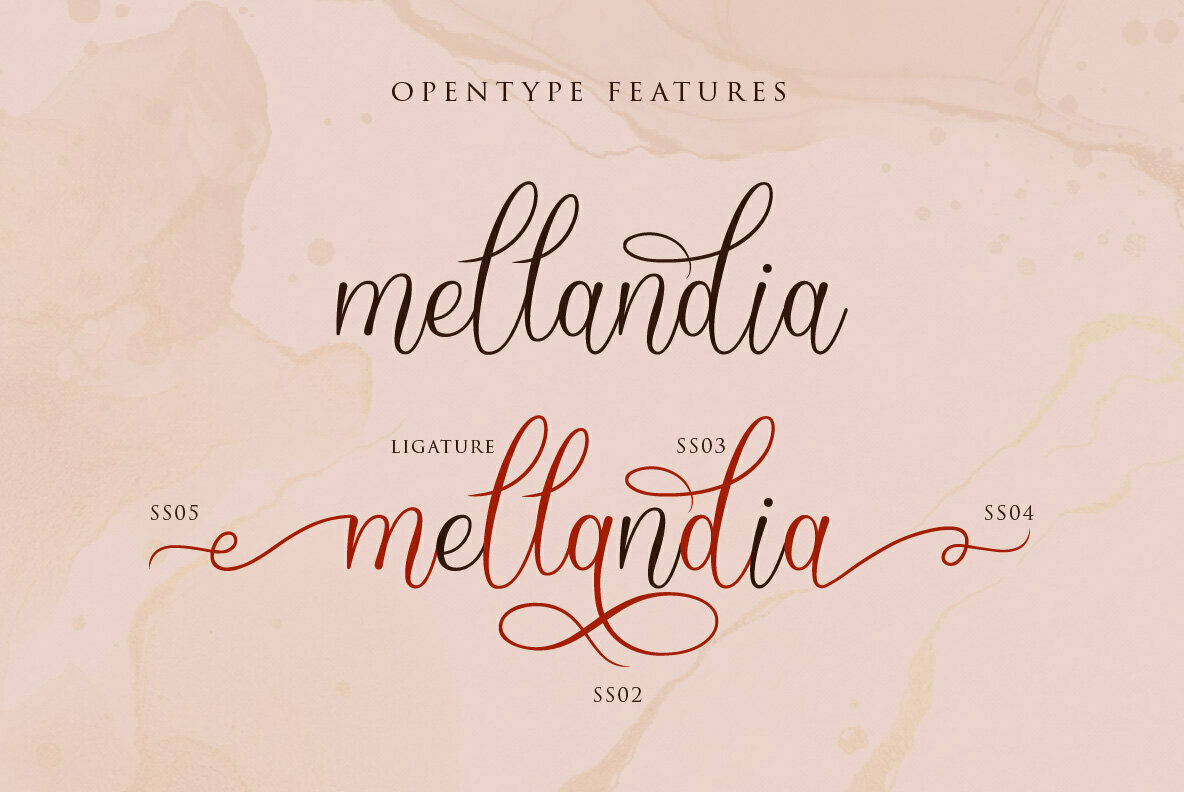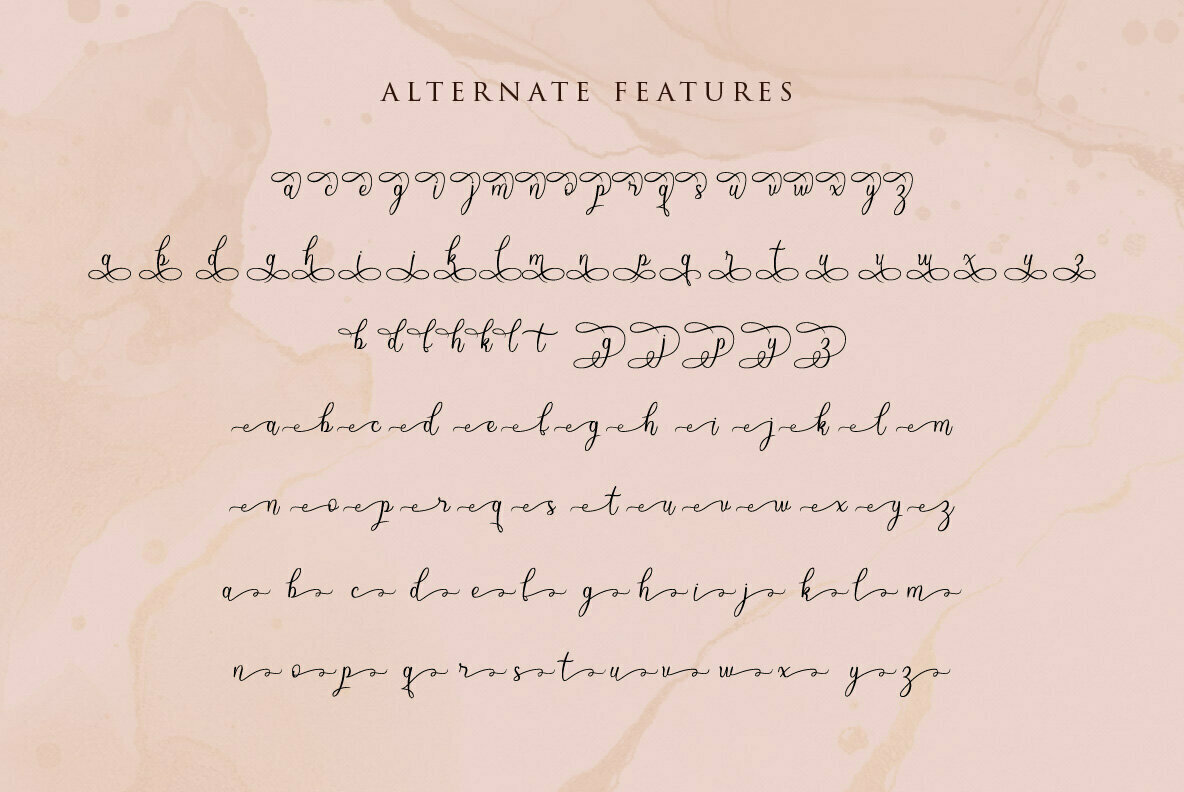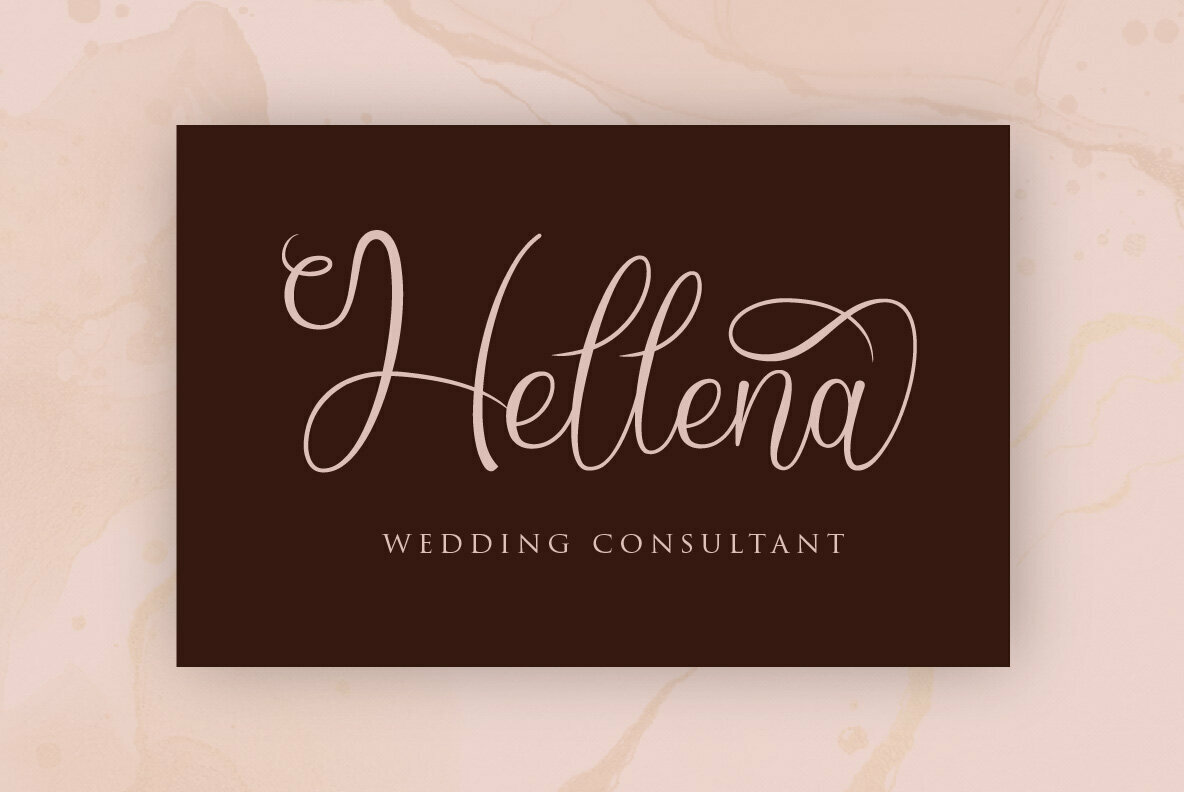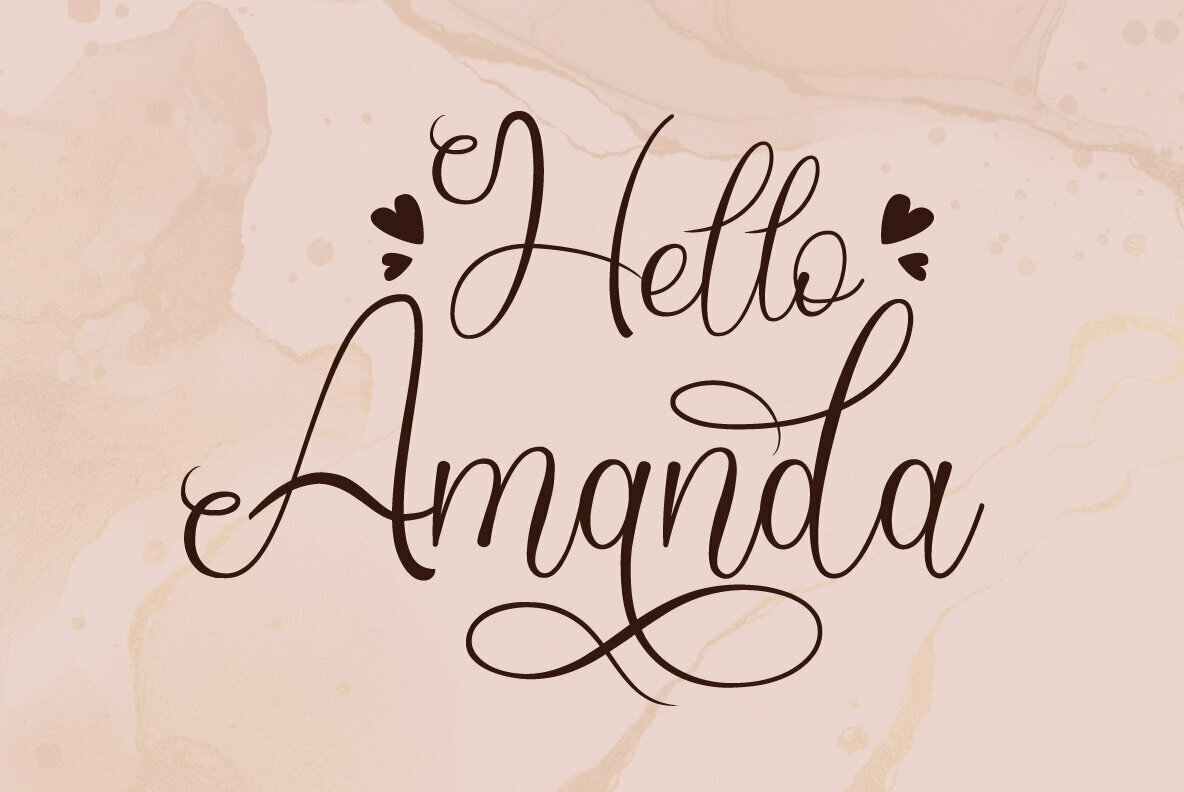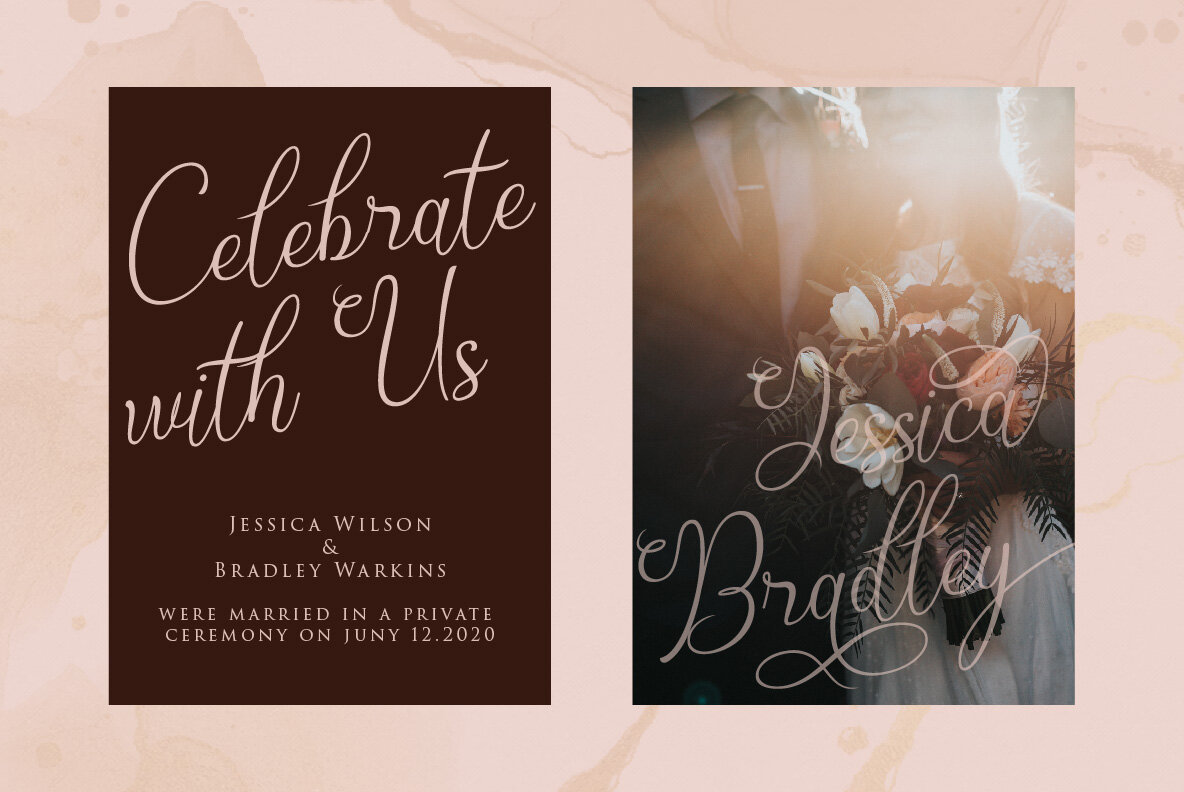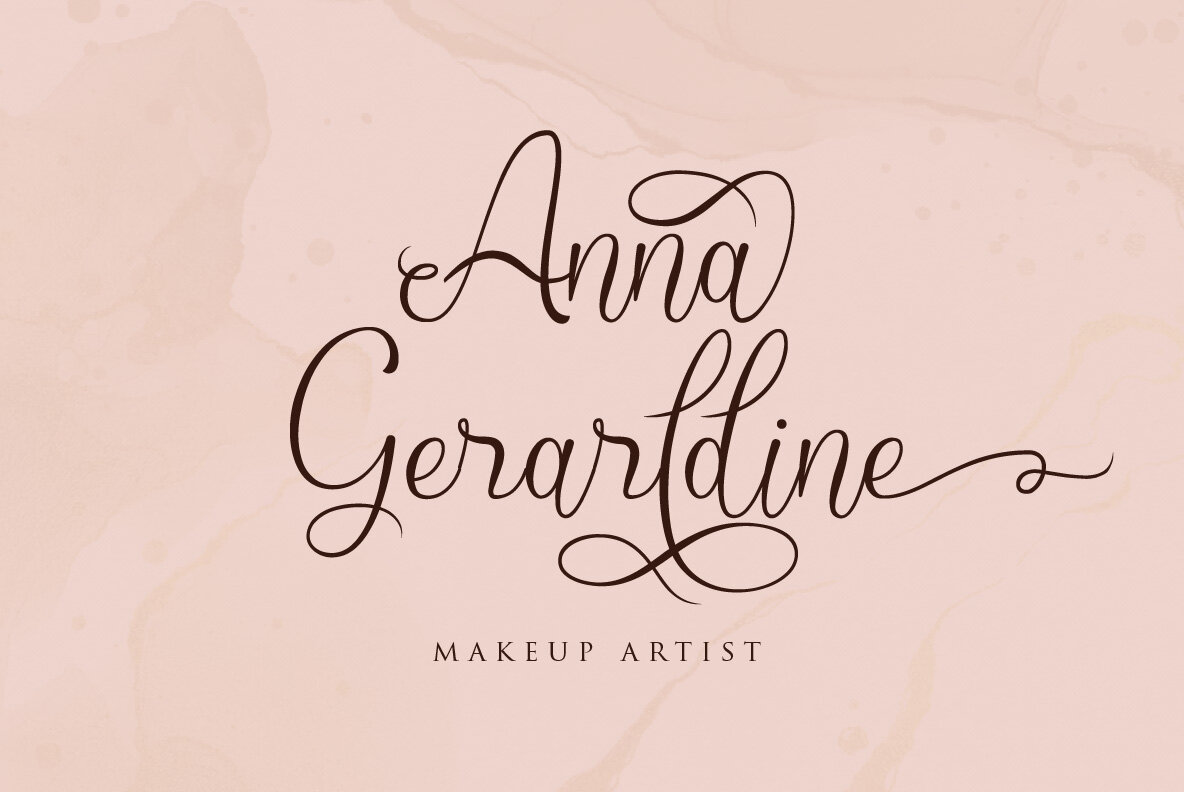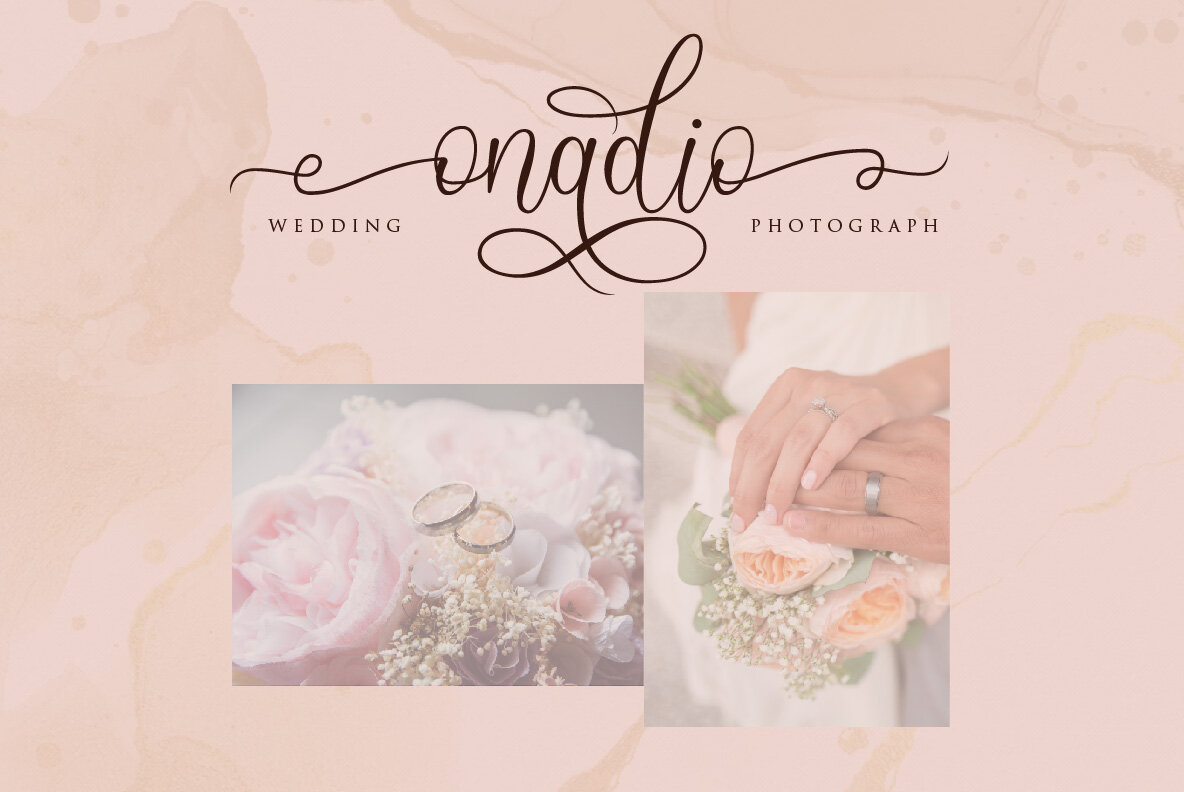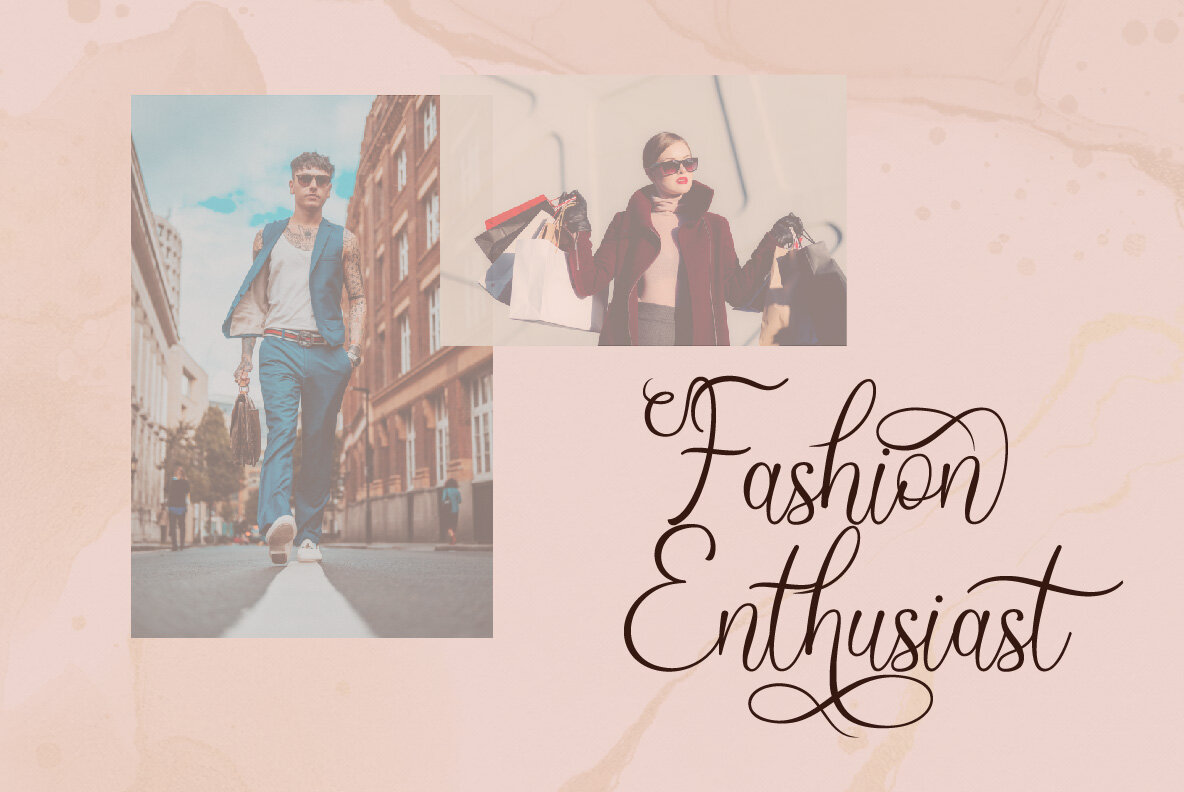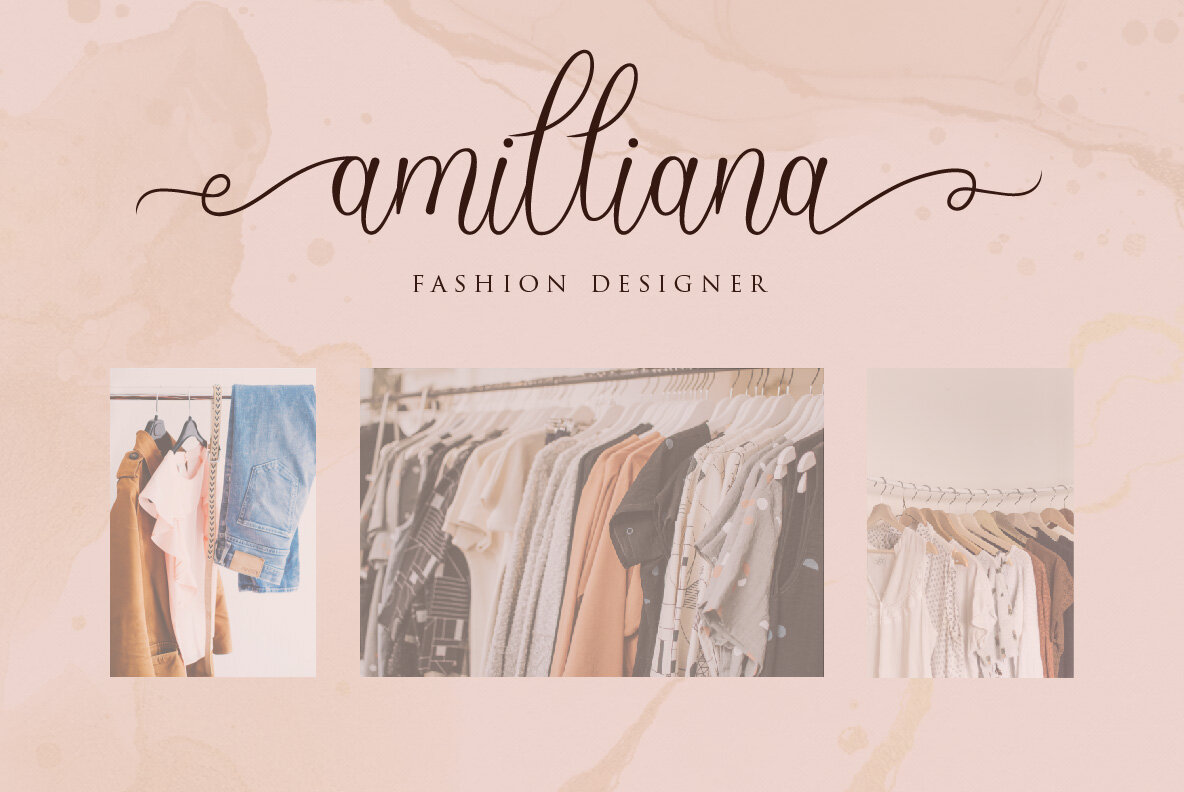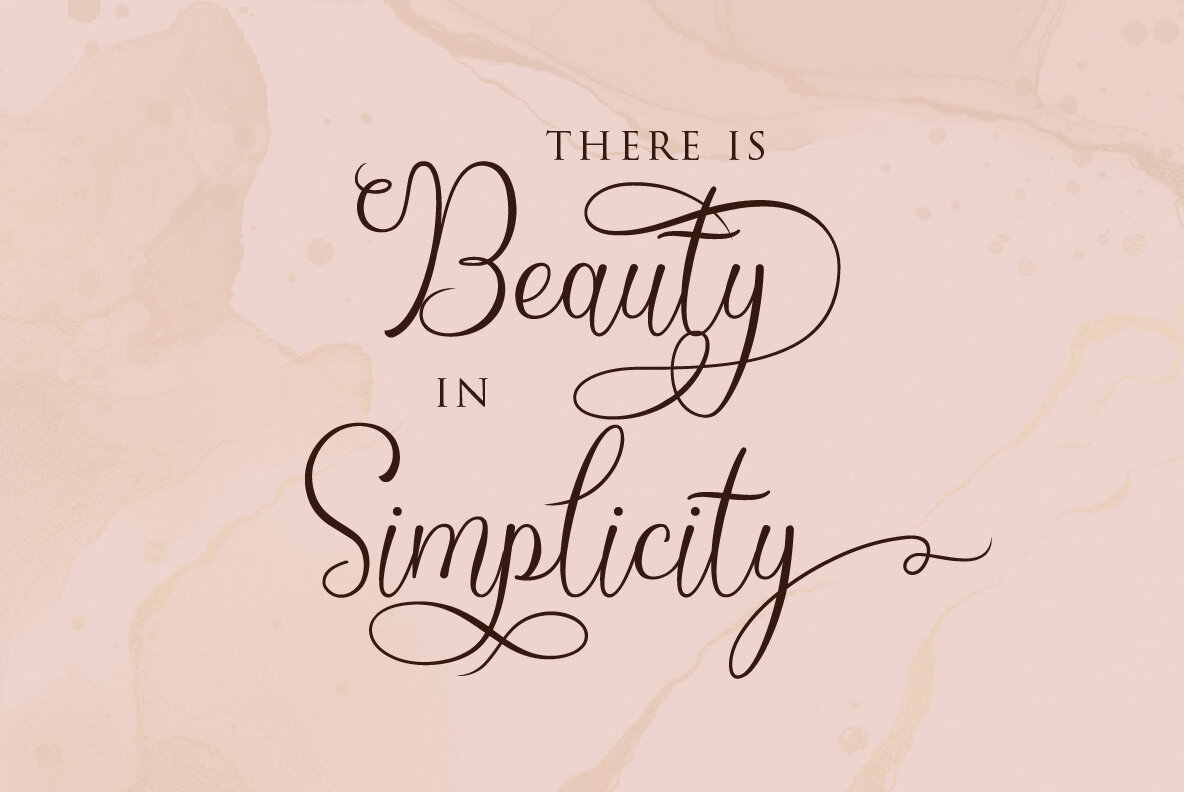
Mellandia Font
Mellandia
Mellandia by Sabrtype Studio is an enchanting script font that exudes elegance and charm with its exquisite swashes and flowing lines. Ideal for crafting stunning greeting cards, delightful stationery, and sophisticated wedding invitations, this font breathes life into your most creative endeavors. Thanks to its PUA encoding, accessing the delightful glyphs and intricate swashes has never been easier. Mellandia comes packed with a variety of features to enrich your design projects, including alternate glyphs and ligatures that add character and personalization to any layout.Mellandia: A Captivating Script Font